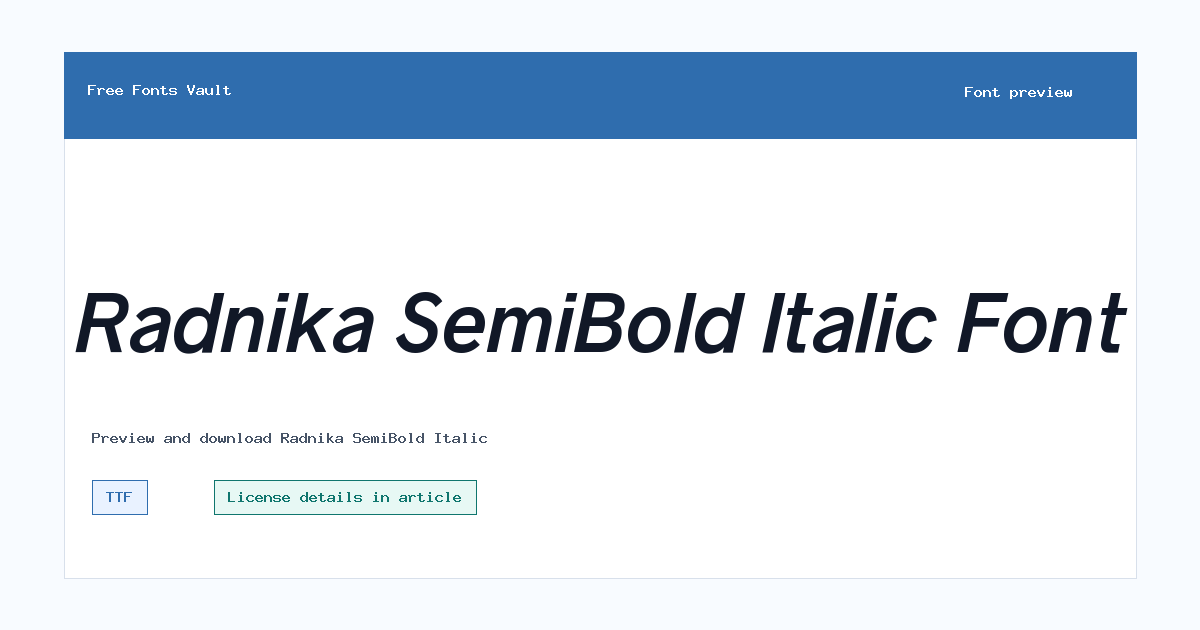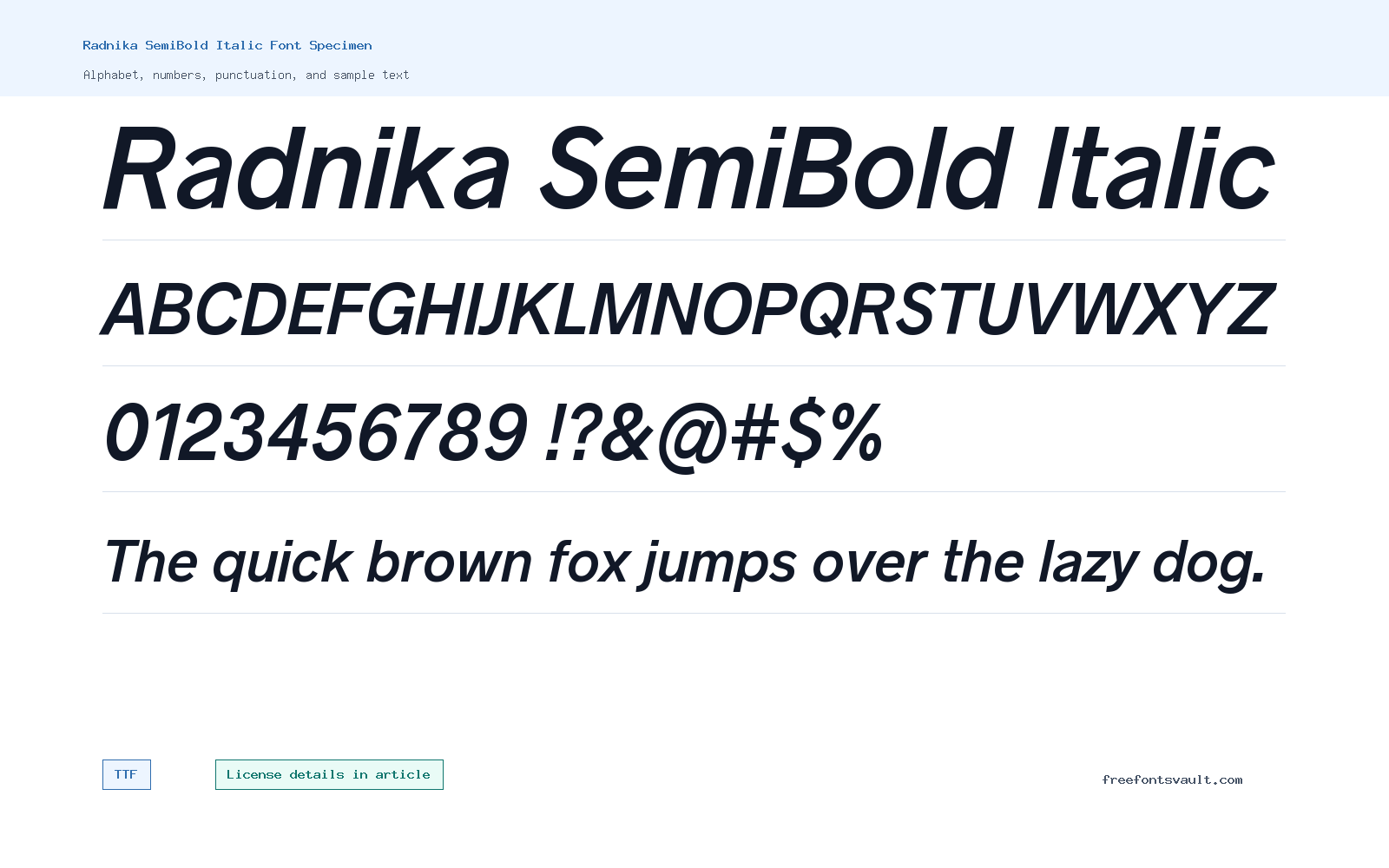
Radnika SemiBold Italic
Radnika SemiBold Italic Font
Radnika SemiBold Italic is a slanted, heavier-weight style made for text that needs emphasis without becoming too loud.
About Radnika SemiBold Italic
Radnika SemiBold Italic has the angled movement of an italic style with the added strength of a semibold weight. That combination makes it useful when regular italic text feels too light, especially in headings, pull quotes, labels, and short highlighted phrases. The font file is supplied in TTF format, which is widely supported across desktop design apps and many web or document tools.
Use the preview box to test the exact words you plan to set before downloading. SemiBold Italic styles can look clear and confident in short lines, but long paragraphs may feel too active because the slant keeps the eye moving. Try it for names, section titles, captions, editorial accents, button text, or small branding details, then pair it with a calmer upright typeface for longer reading.
Radnika SemiBold Italic is most useful when a layout needs a confident secondary voice. It can make a quote, product detail, author line, tab label, or short callout feel intentional without switching to a decorative font. Keep the line length modest and let the italic angle do the emphasis.
When pairing it, use an upright sans serif or serif for the main reading text. The contrast between upright body copy and this slanted semibold style makes hierarchy clearer, especially in editorial pages, landing sections, captions, and compact UI blocks.
• SemiBold italic style with a 700 weight value
• Useful for emphasis when regular italic feels too light
• Works best with generous spacing and short line lengths
• Headlines, subheads, pull quotes, and short editorial accents
• Emphasis text, labels, buttons, and compact display use
• Editorial cards, author names, short quotes, product labels, and interface accents
Radnika SemiBold Italic is credited to Alfredo Marco Pradil, with Hanken Design Co. listed as the foundry.
For best results, use Radnika SemiBold Italic in short text where the slant and weight can add emphasis. Avoid setting large blocks of body copy in this style unless the preview remains comfortable to read at your chosen size.
Is Radnika SemiBold Italic good for body text?
It is better for short emphasis, headings, labels, and pull quotes. For long reading, pair it with an upright regular style if one is available in your design system.
Who designed Radnika SemiBold Italic?
The font is credited to Alfredo Marco Pradil, and Hanken Design Co. is listed as the foundry.
How should I pair Radnika SemiBold Italic?
Use it beside a calmer upright font. Let Radnika SemiBold Italic handle emphasis, then keep paragraphs, descriptions, and longer instructions in a regular text style.